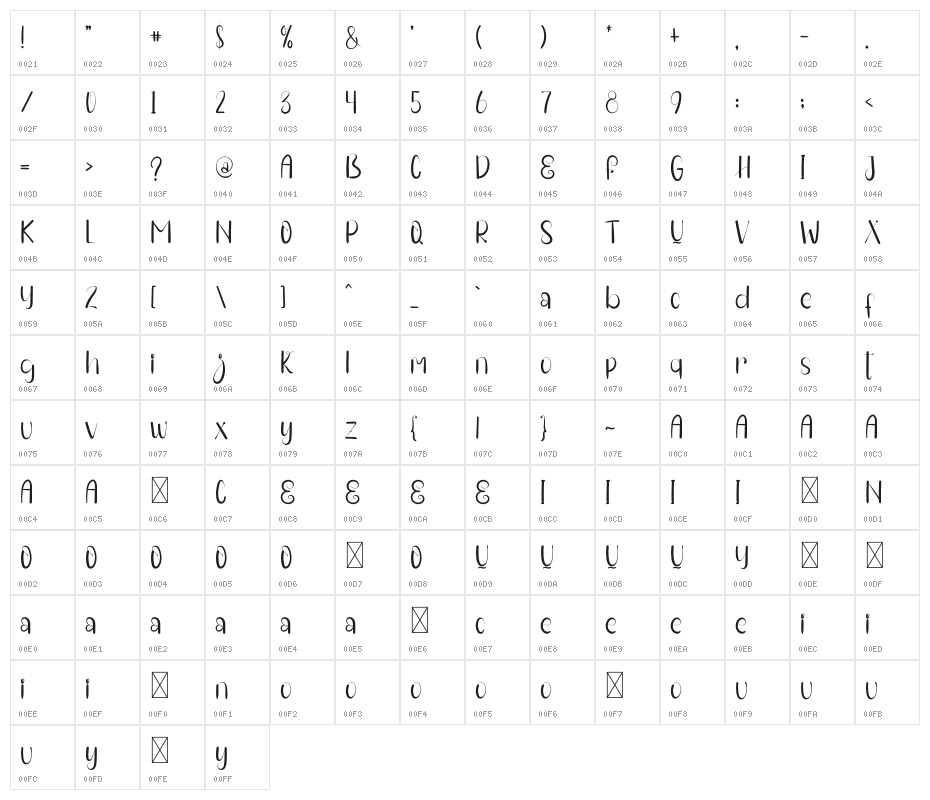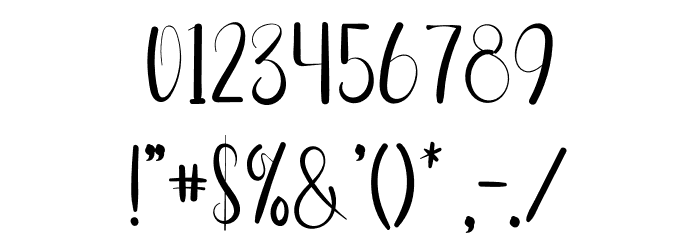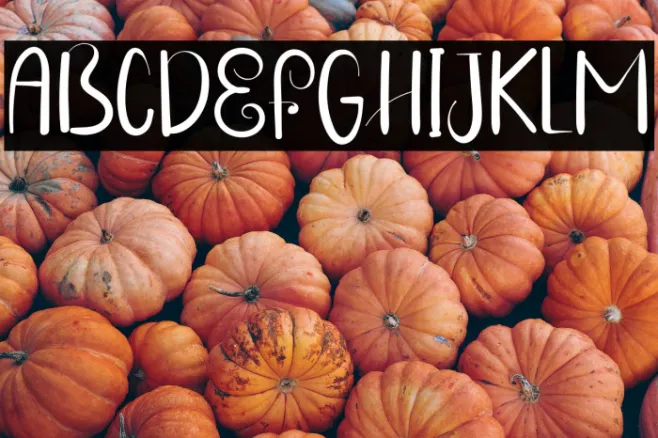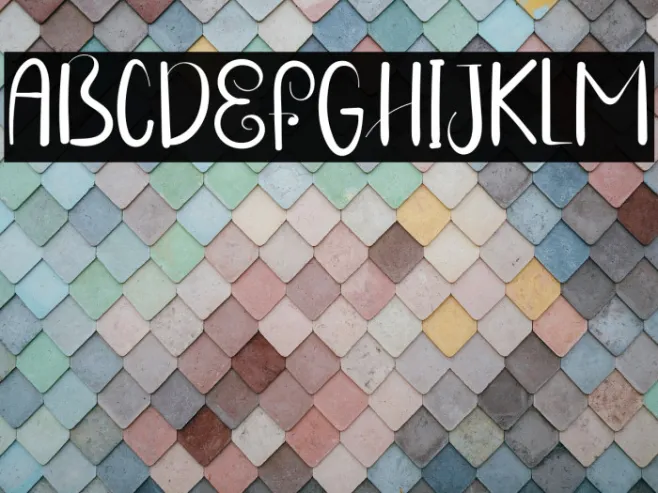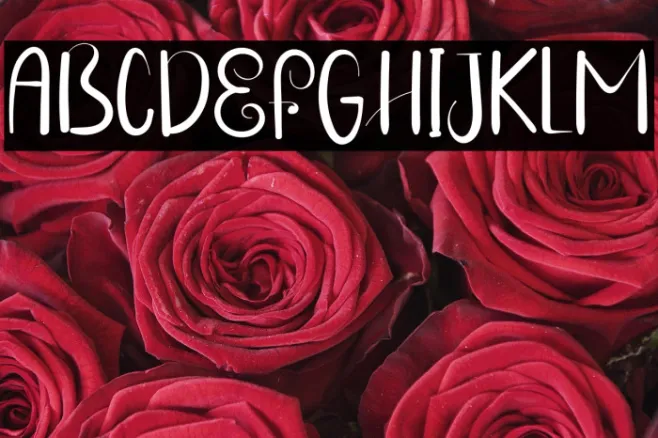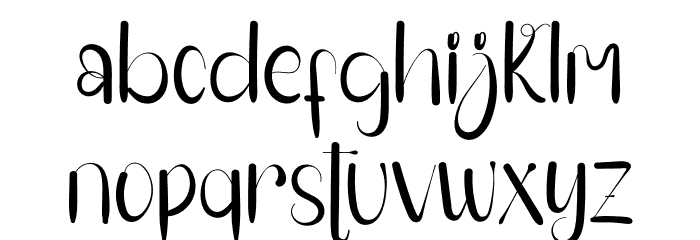
Break Fly Font
Break Fly Description
This font features a playful and whimsical style, characterized by its flowing, cursive-like strokes and varying line thicknesses. Each letter is uniquely crafted with a sense of movement and flair, making it stand out with its artistic and decorative appeal. The uppercase letters exhibit a bold presence with elongated verticals and gentle curves, while the lowercase letters maintain a more compact and rounded form. The numerals are distinct and easy to read, complementing the overall style. Special characters are creatively integrated, adding to the font's versatility. This font is perfect for projects that require a touch of elegance and creativity.
| Proposed Projects | Ideal for invitations, greeting cards, branding, and creative posters. |